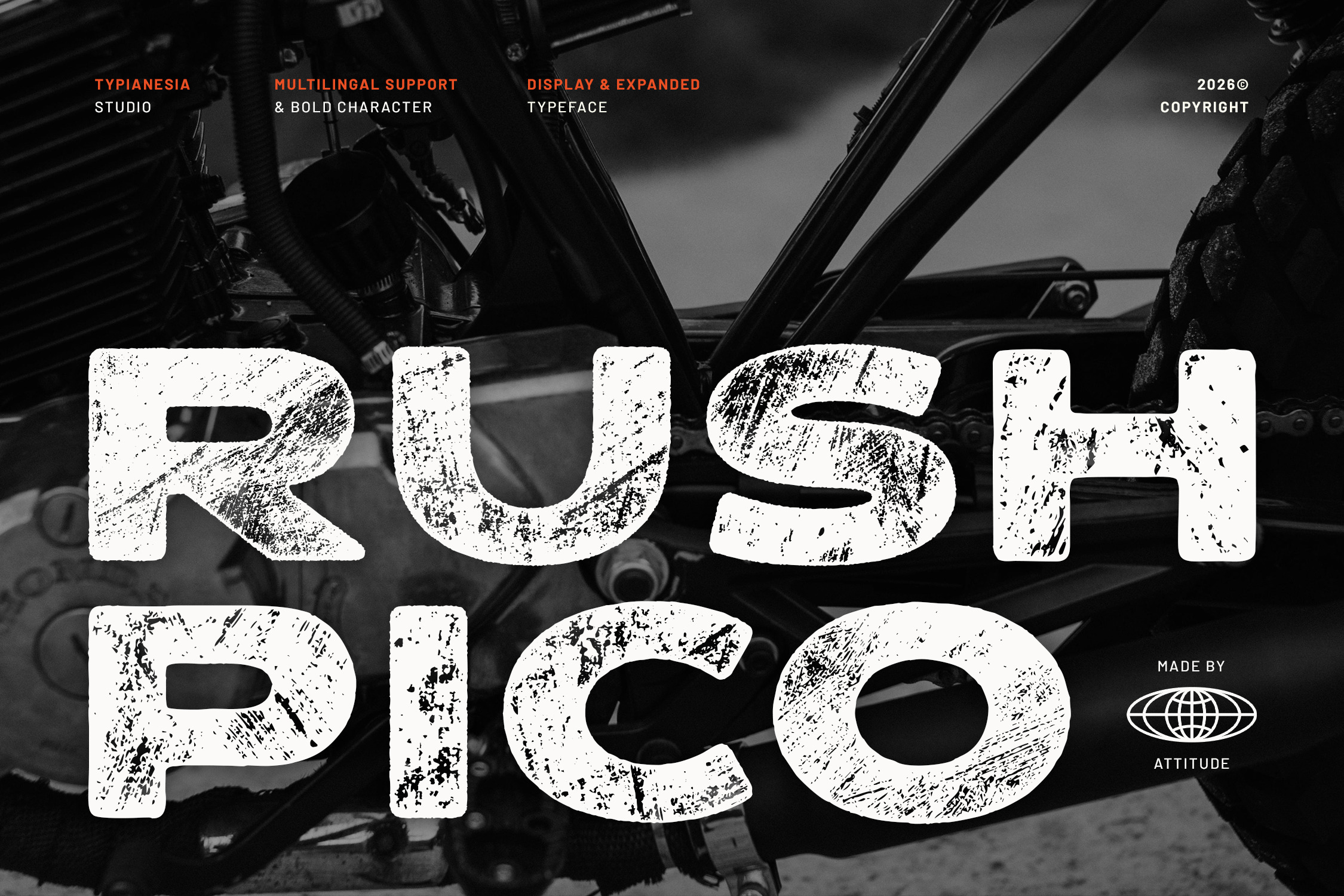
Rushpico - Bold Rough Stamp Font
Rushpico - Bold Rough Distressed Stamp Font - Bold Modern Grunge Sans Display Font
Rushpico is a bold rough distressed stamp font with a modern sans-serif base and a strong vintage, retro stamp feel. Designed with bold and expanded letterforms, Rushpico delivers a rugged, masculine, and grunge character that instantly adds a textured, rough effect to your designs. Inspired by classic stamp prints, badges, labels, and worn ink impressions, this font is perfect for logos, posters, branding, packaging, apparel, signage, and any project that needs a bold, powerful, and impactful presence.